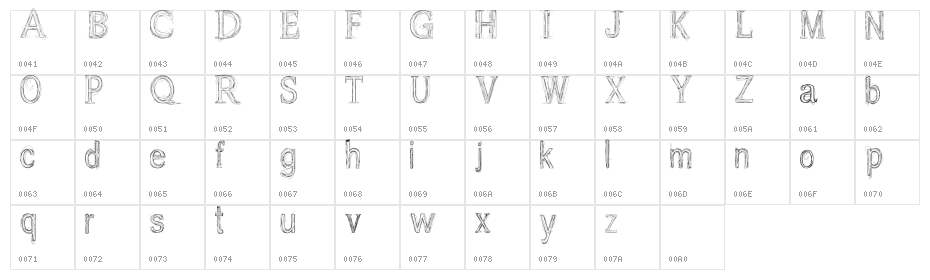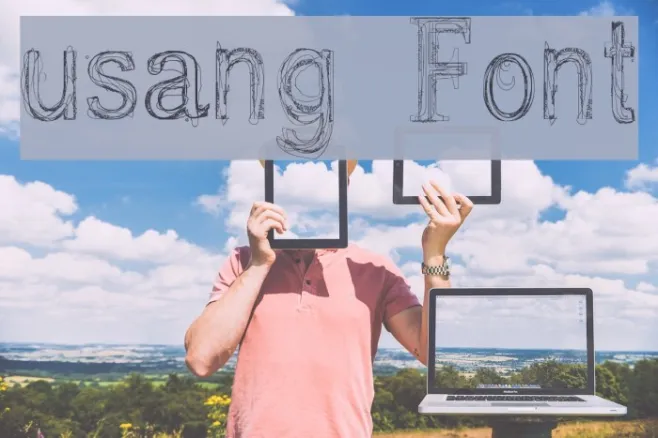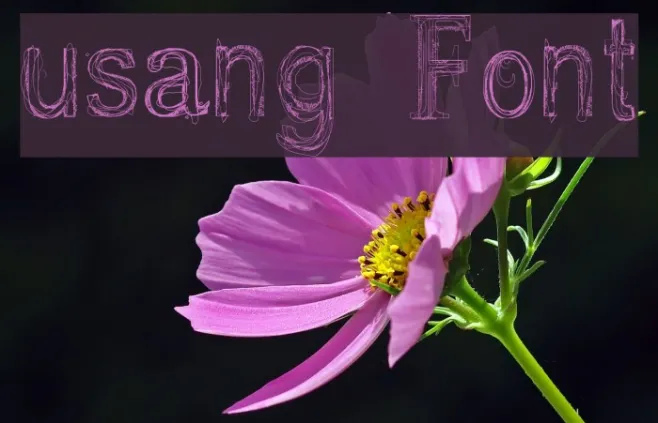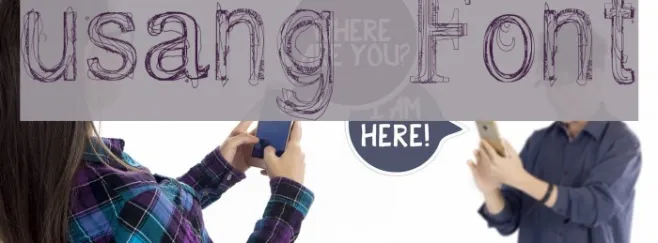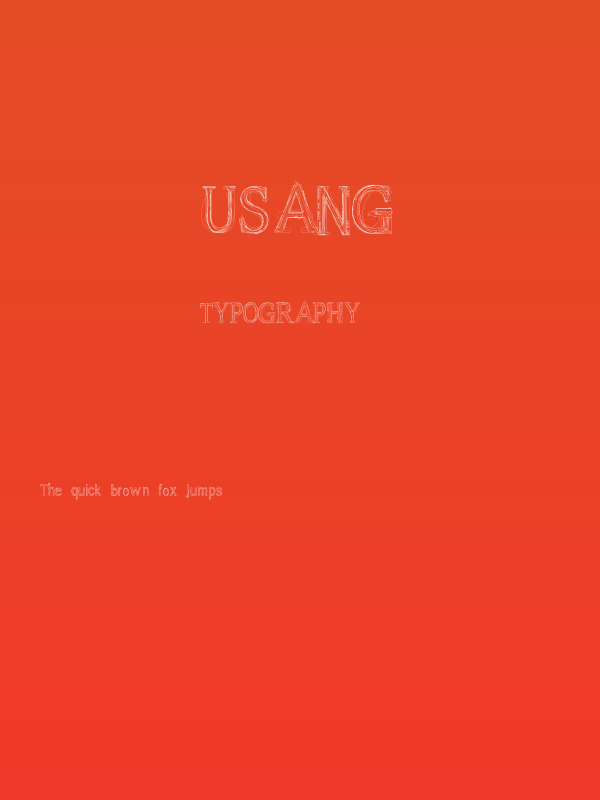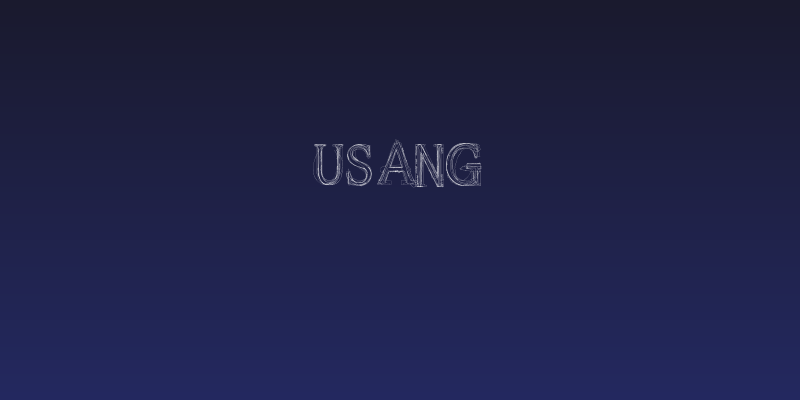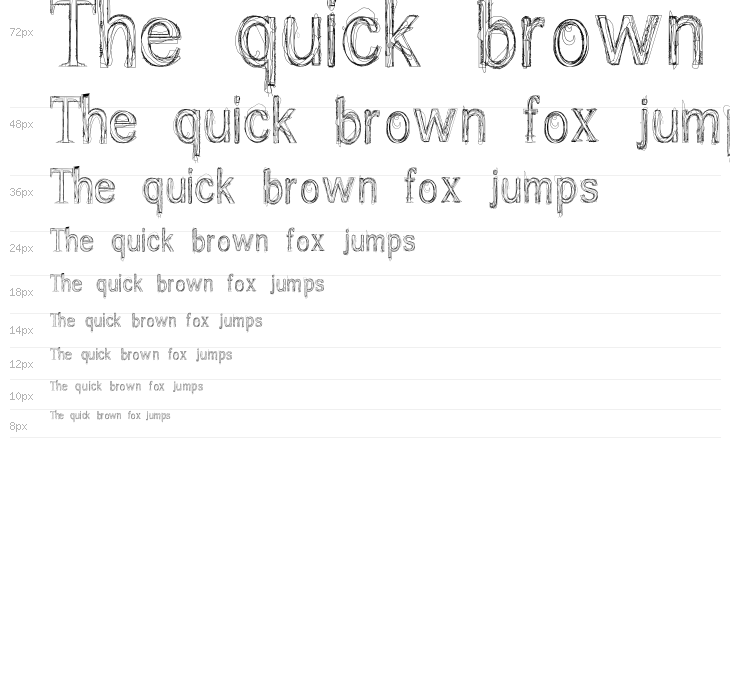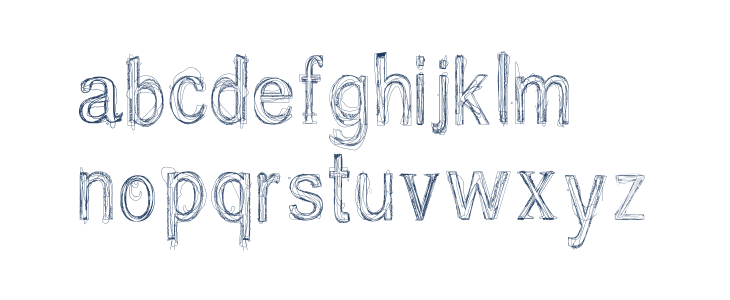
usang Font
usang Description
This font features a unique, hand-drawn style with a sketch-like appearance. Each character is outlined with irregular, rough lines that give it a textured and artistic feel. The uppercase and lowercase letters maintain a consistent height, while the numbers and special characters follow the same design ethos. The font's playful and creative nature makes it stand out, offering a sense of individuality and charm. Its imperfect lines and organic shapes suggest a sense of movement and dynamism, making it suitable for projects that require a personal touch.
| Proposed Projects | Ideal for artistic projects, children's books, creative branding, and informal invitations. |